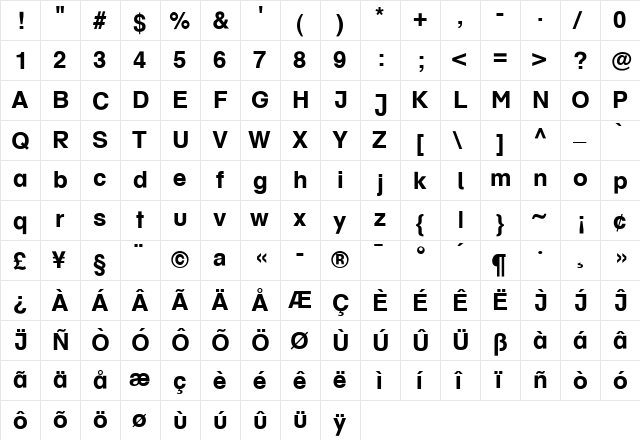
SchulbuchSued Bold
Design Context for SchulbuchSued Typeface
SchulbuchSued is a composed and adaptable typeface that performs quietly and consistently across a wide range of design contexts. The heavy weight commands attention and anchors typographic hierarchies.